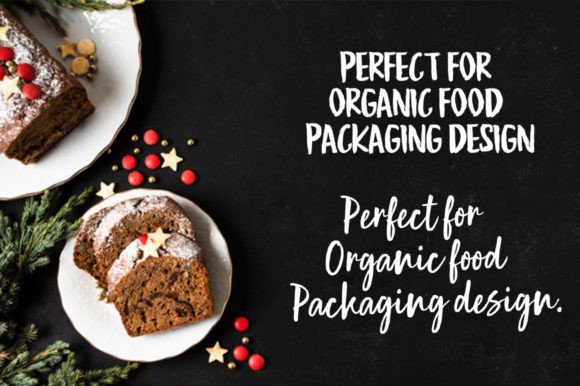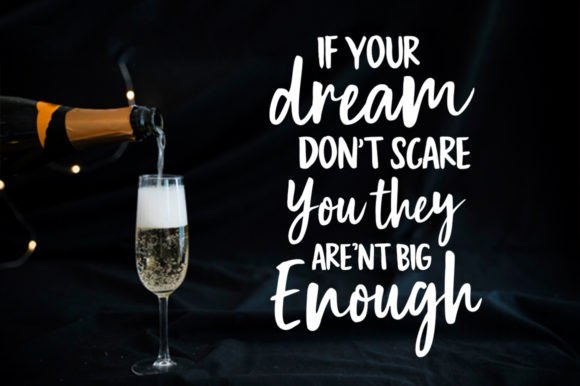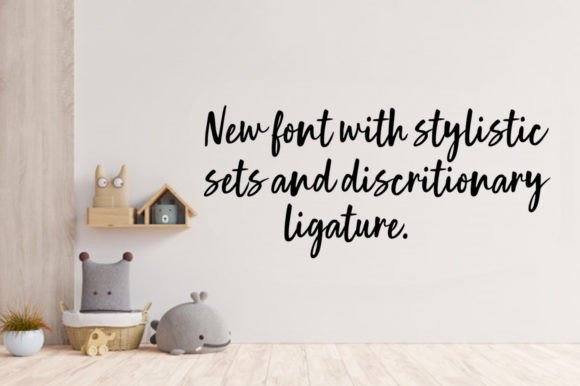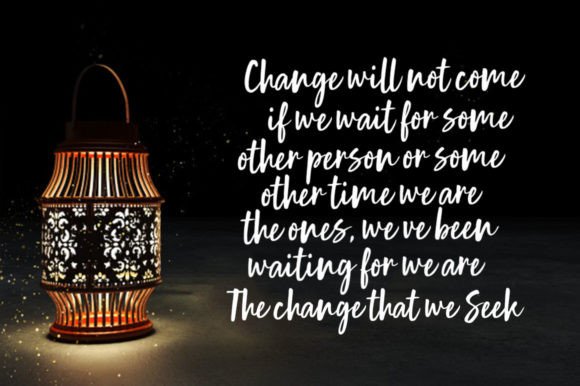
Cinthia Font
About Cinthia Font
The Cinthia is a sweet and dynamic calligraphy typeface. It has dancing characters which gives it a casual touch. It’s perfect for creating a playful, yet elegant design.